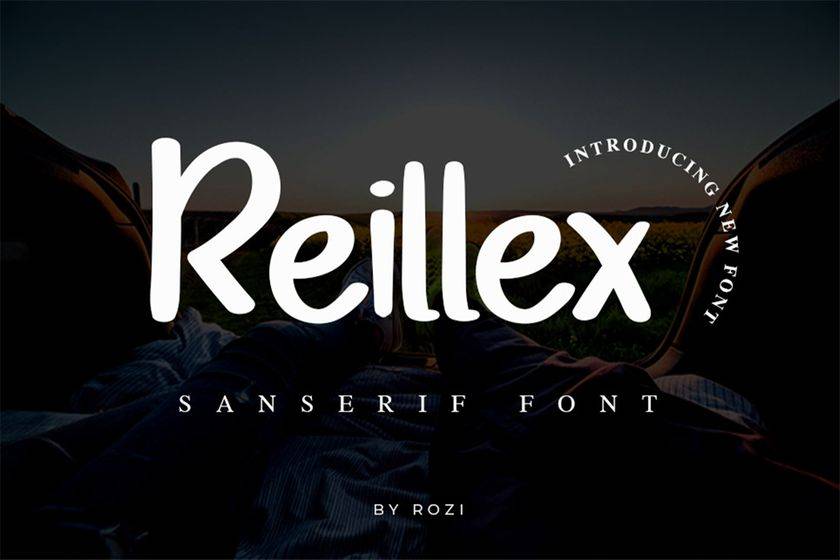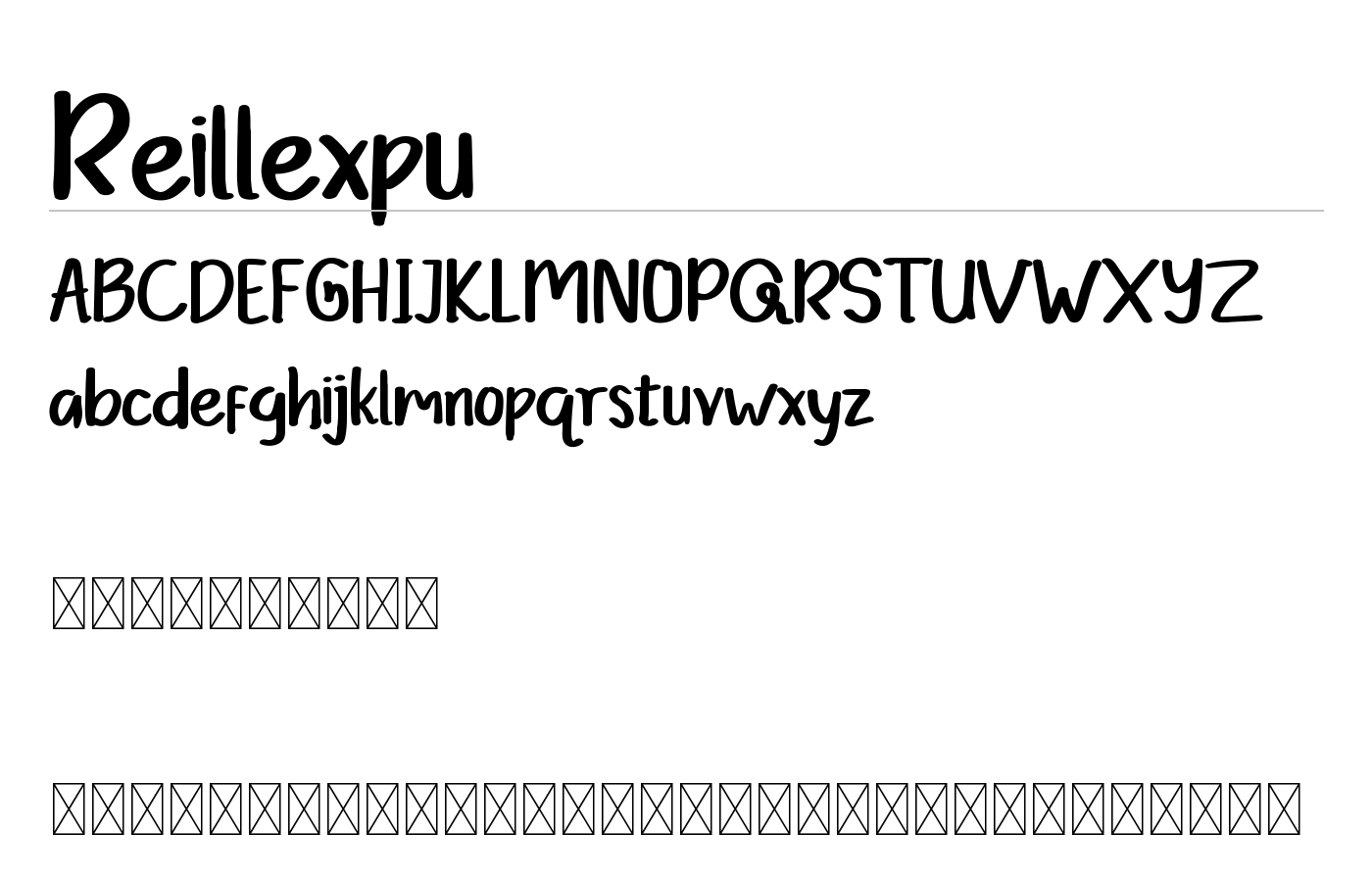
Reillex is a playful and casual handwritten sans serif font with a friendly, informal feel. Its rounded strokes and uneven letterforms give it a warm, approachable personality, making it ideal for creative projects, children’s materials, and personal branding where a relaxed and fun tone is desired. This font works best in headlines, logos, and packaging that call for a unique, hand-crafted look.
Reillex Font
About Reillex Font
| Font family | Reillex Font |
| Designer | Rozi |